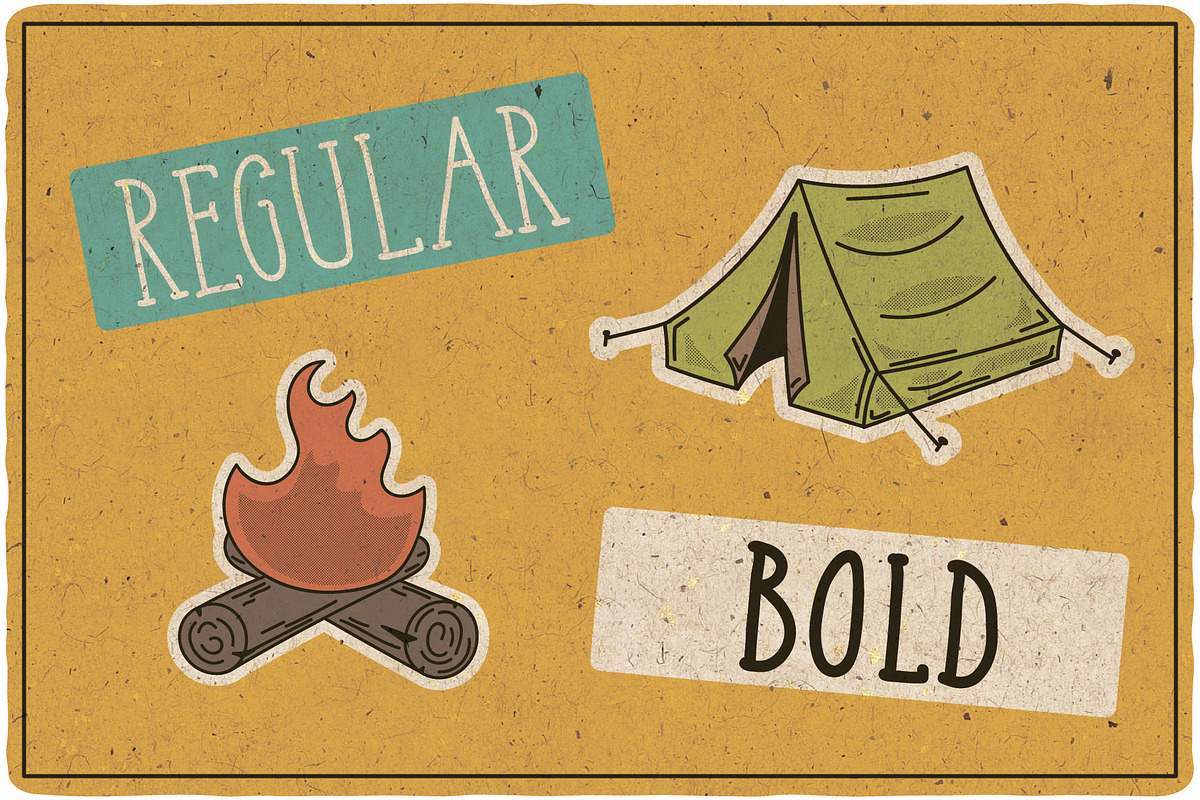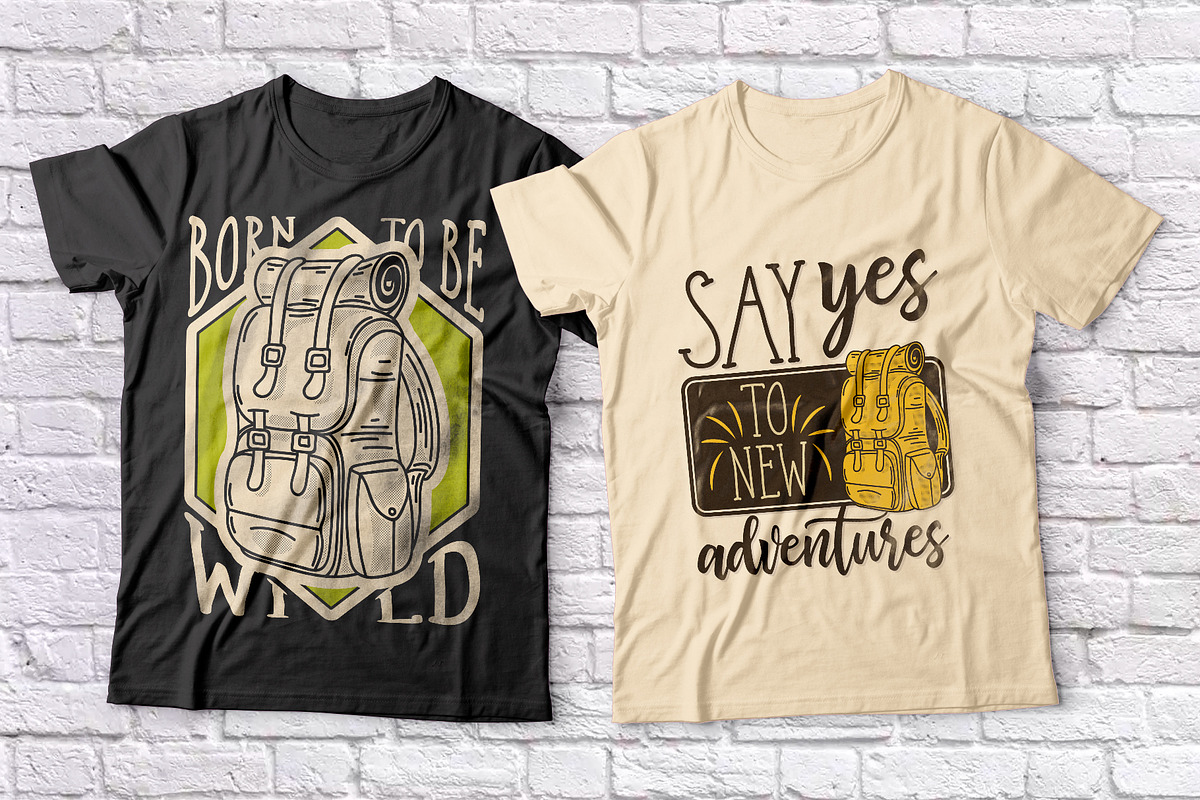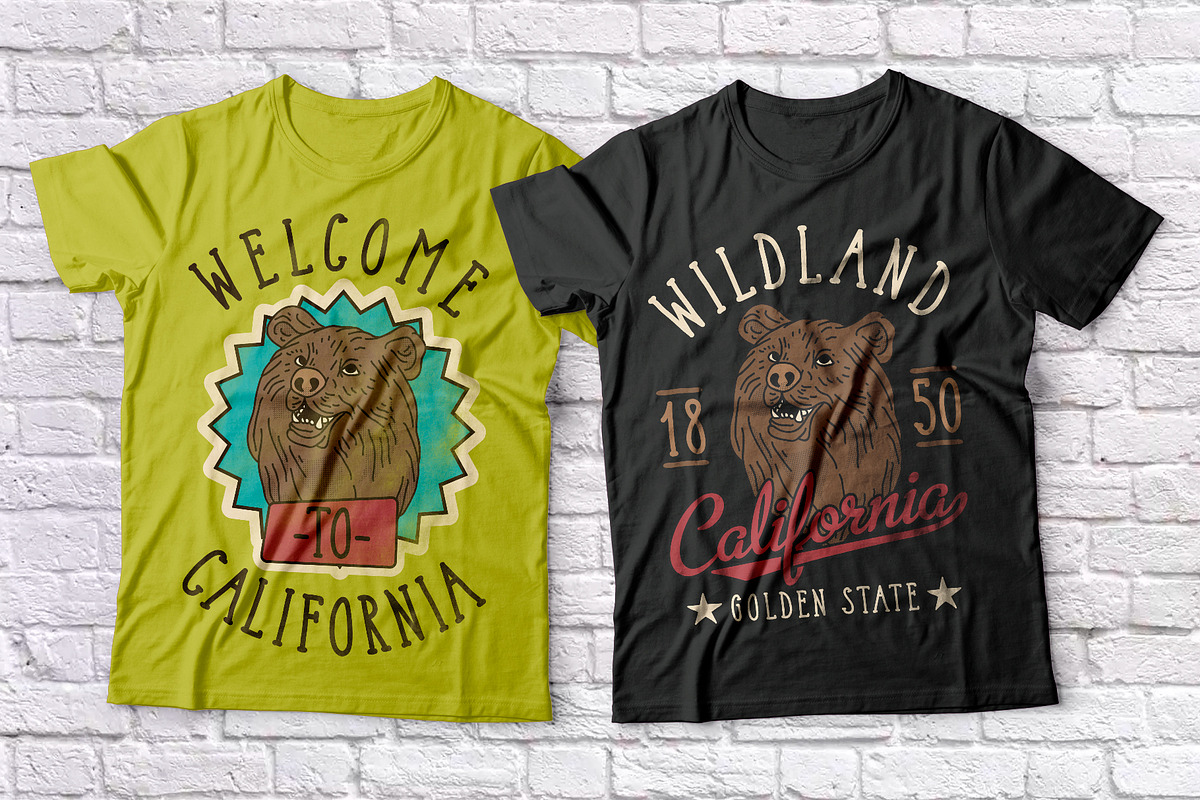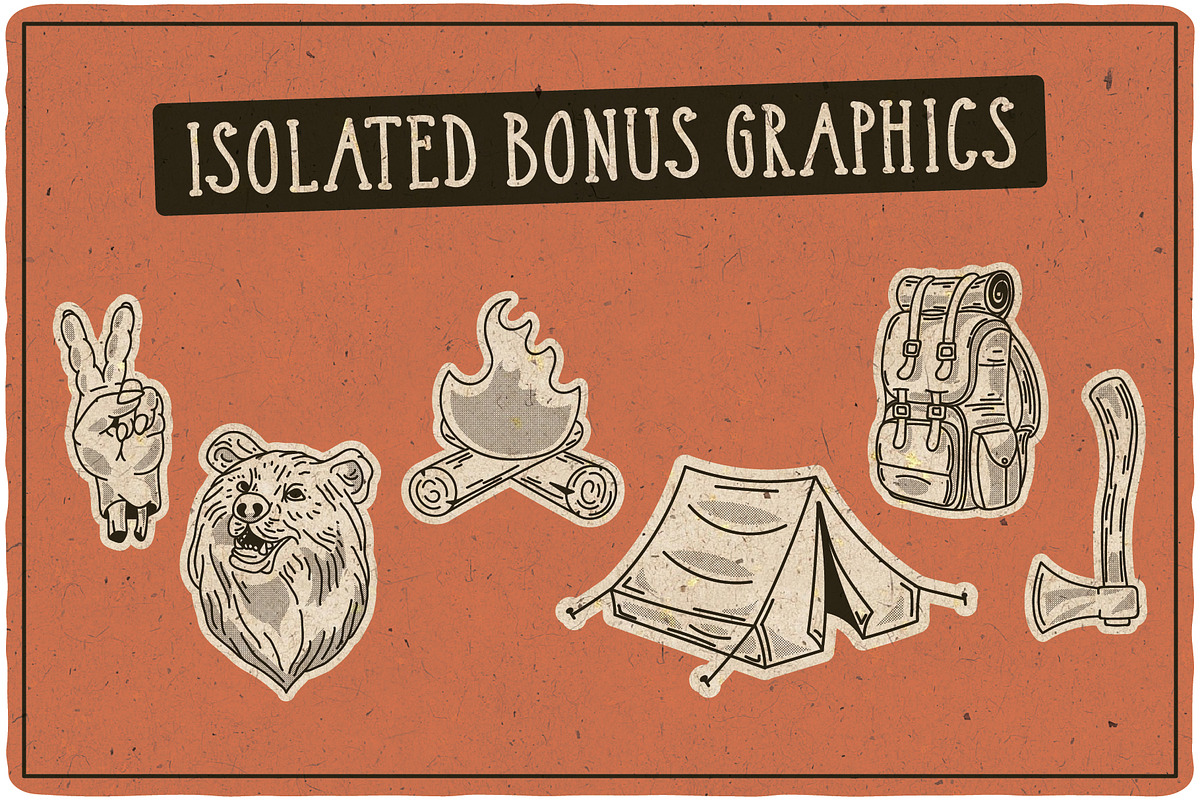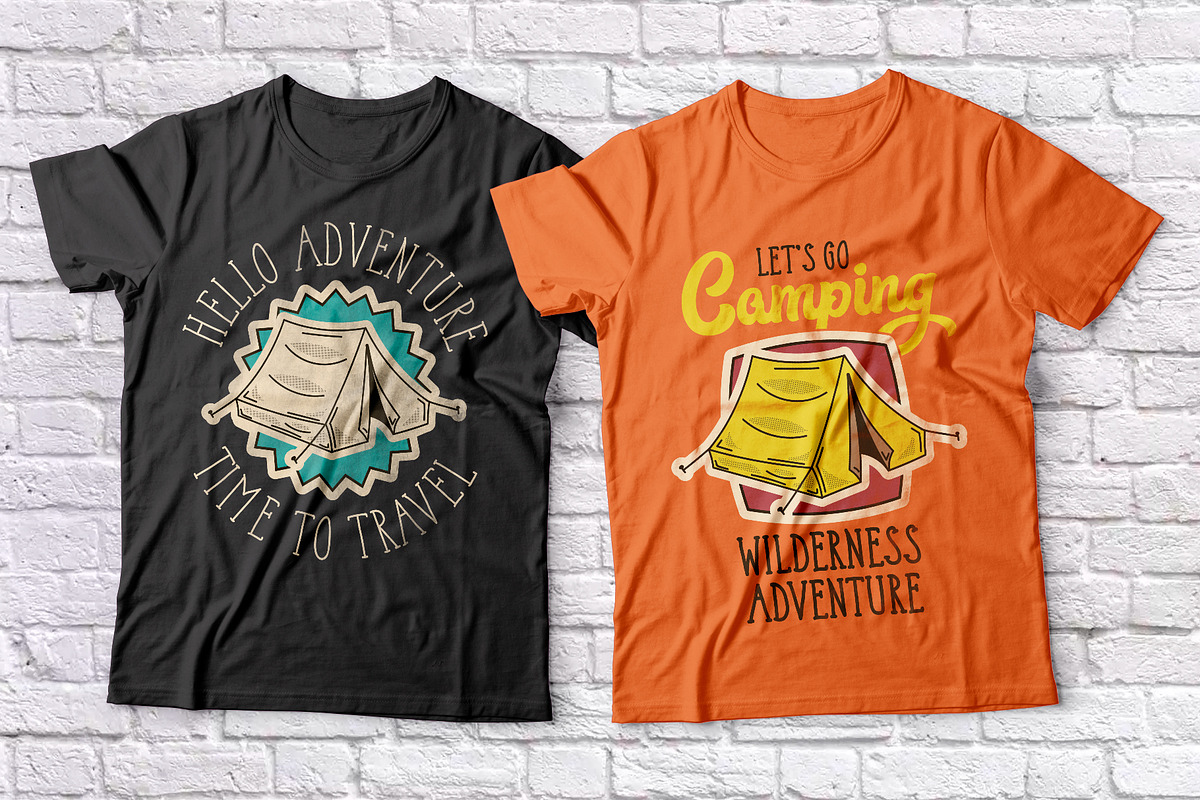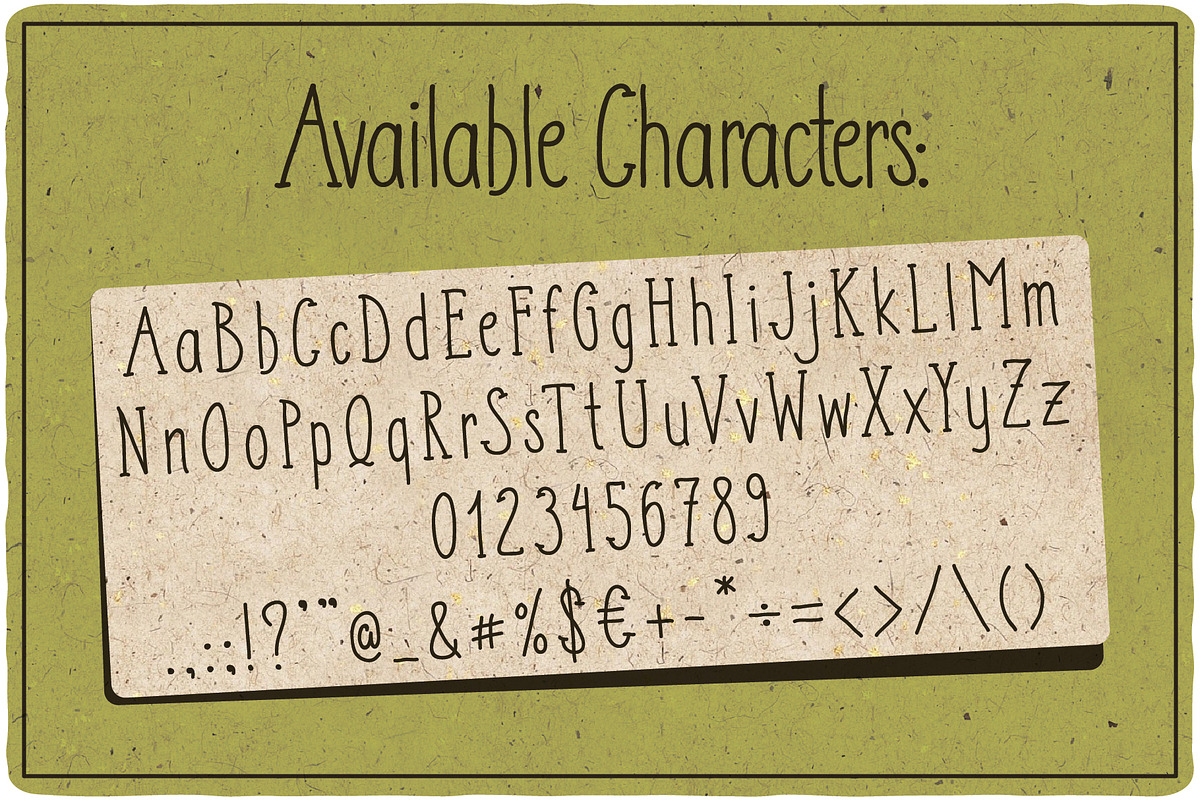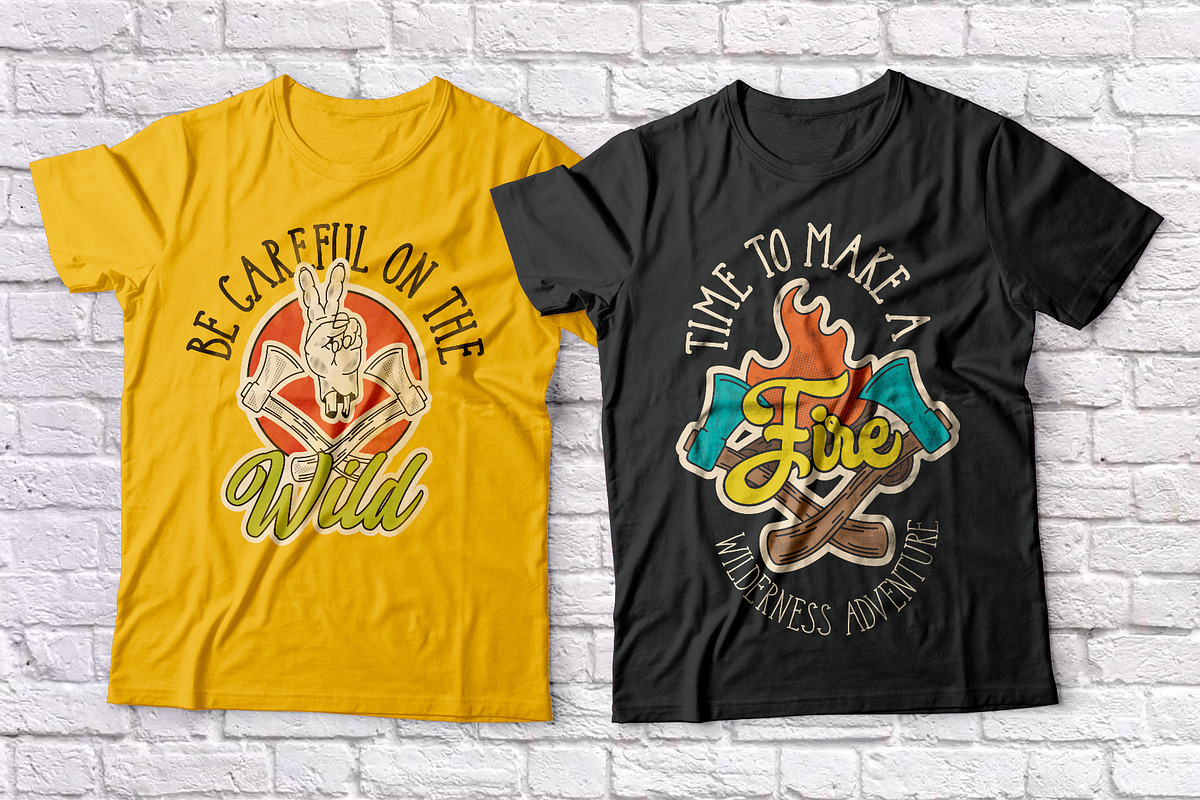
Adventure Typeface
Introducing a hand crafted oldschool label font named "Adventure".Typeface includes two styles - Regular and Bold. This font will good viewed on any retro design like poster, t-shirt, label, logo etc.
Why Adventure Typeface is worth a look
Adventure Typeface by VozzyStock fits naturally into Branding, posters, packaging, typography.